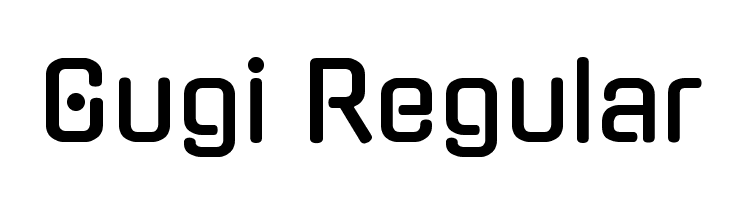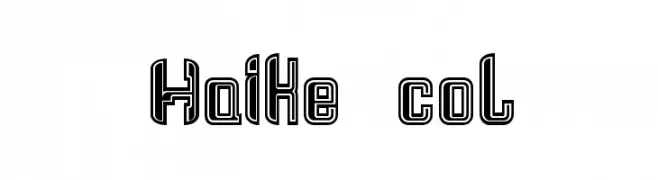
A bold, cursive font with a dynamic and fluid handwriting style.
A playful, bold font with a whimsical and childlike design.
A modern, geometric font with rounded edges and a minimalist style.
A flowing, cursive font with elegant loops and a handwritten style.
A bold, geometric font with a modern and blocky style.
A bold, geometric font with a double-line outline, offering a modern and futuristic look.
A sleek, modern font with thin, elongated characters and a futuristic style.